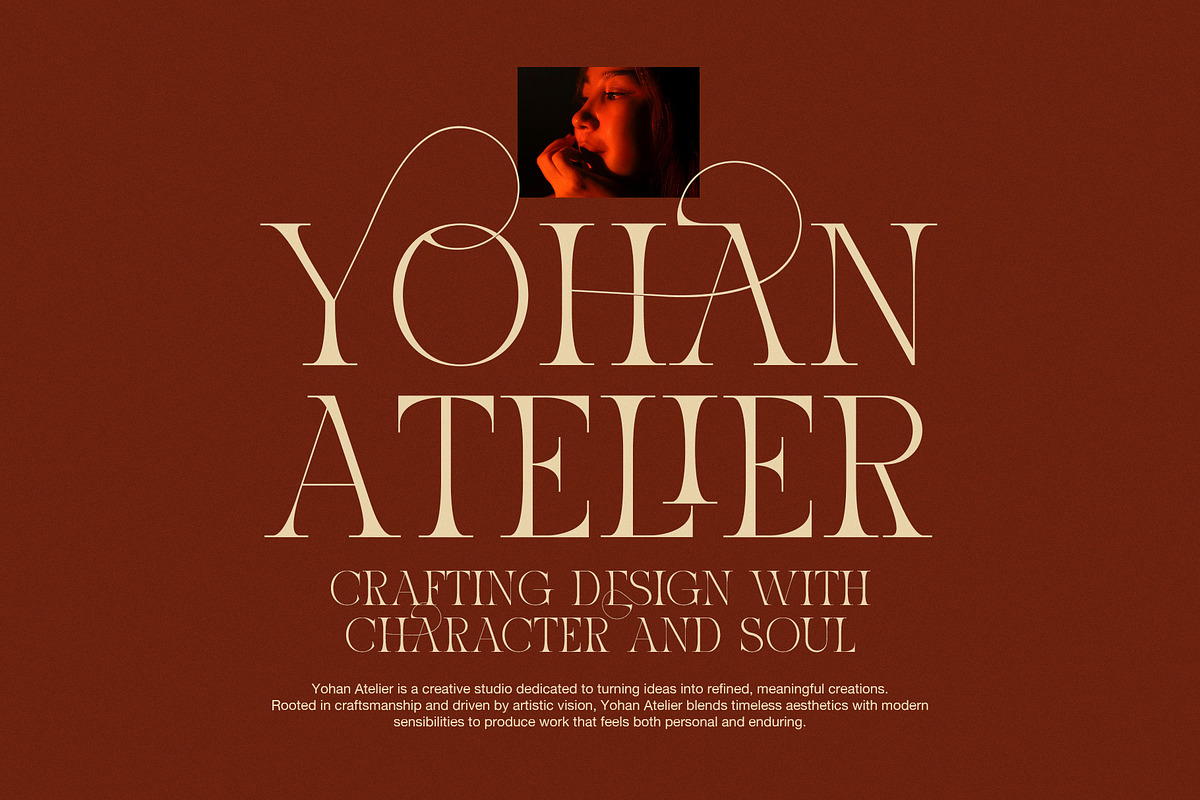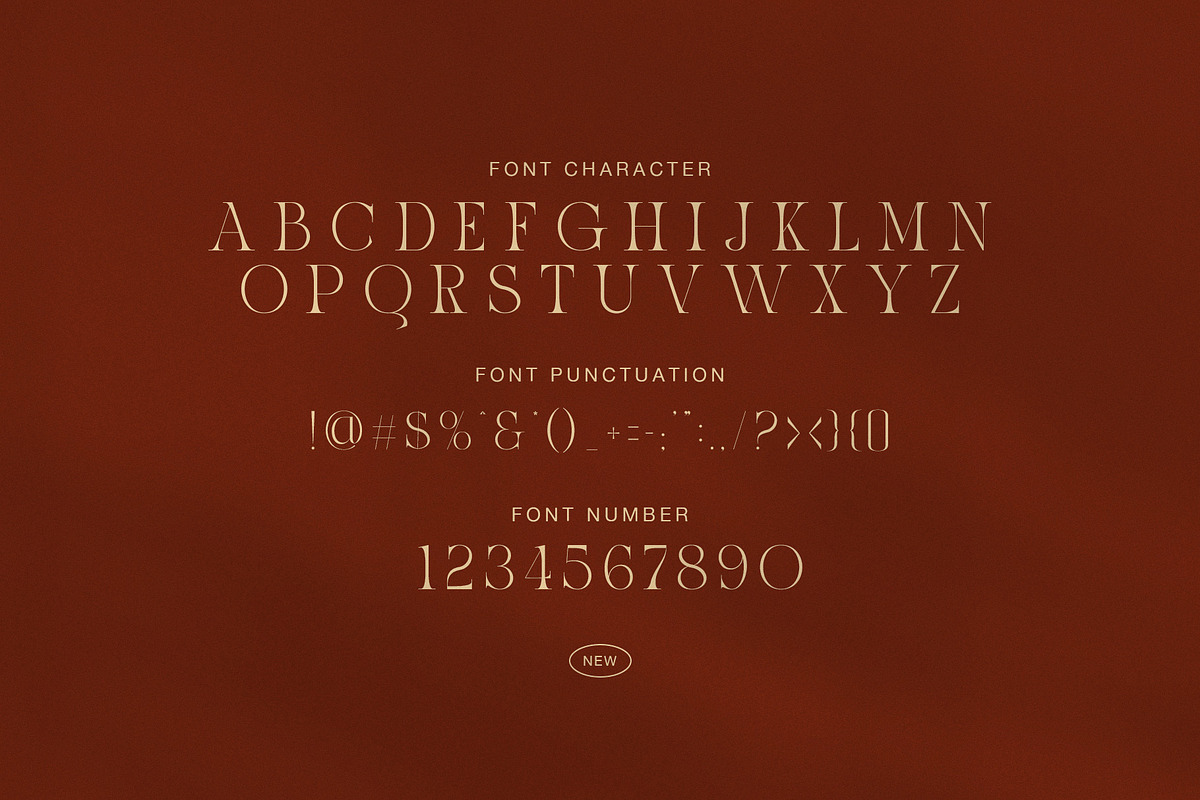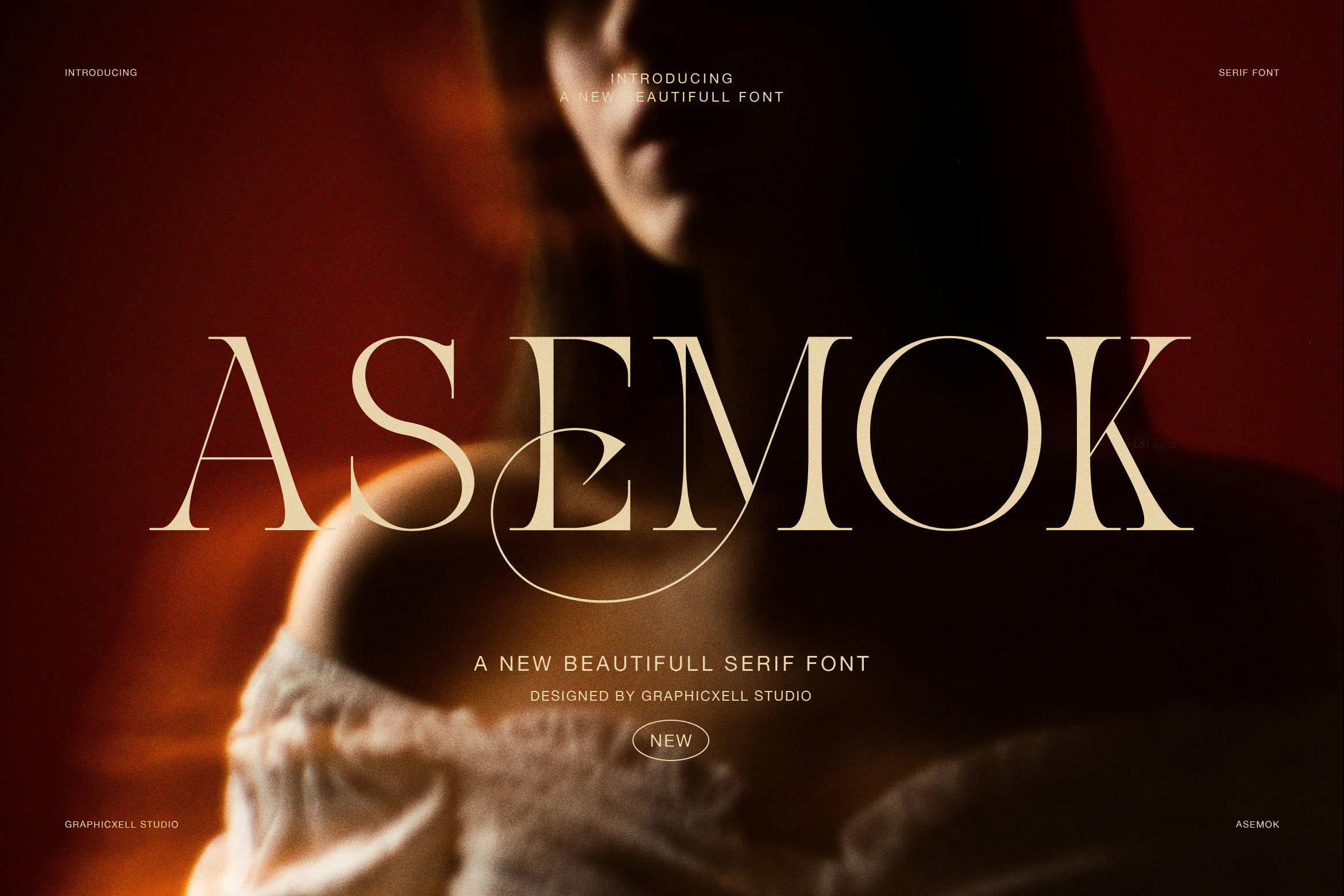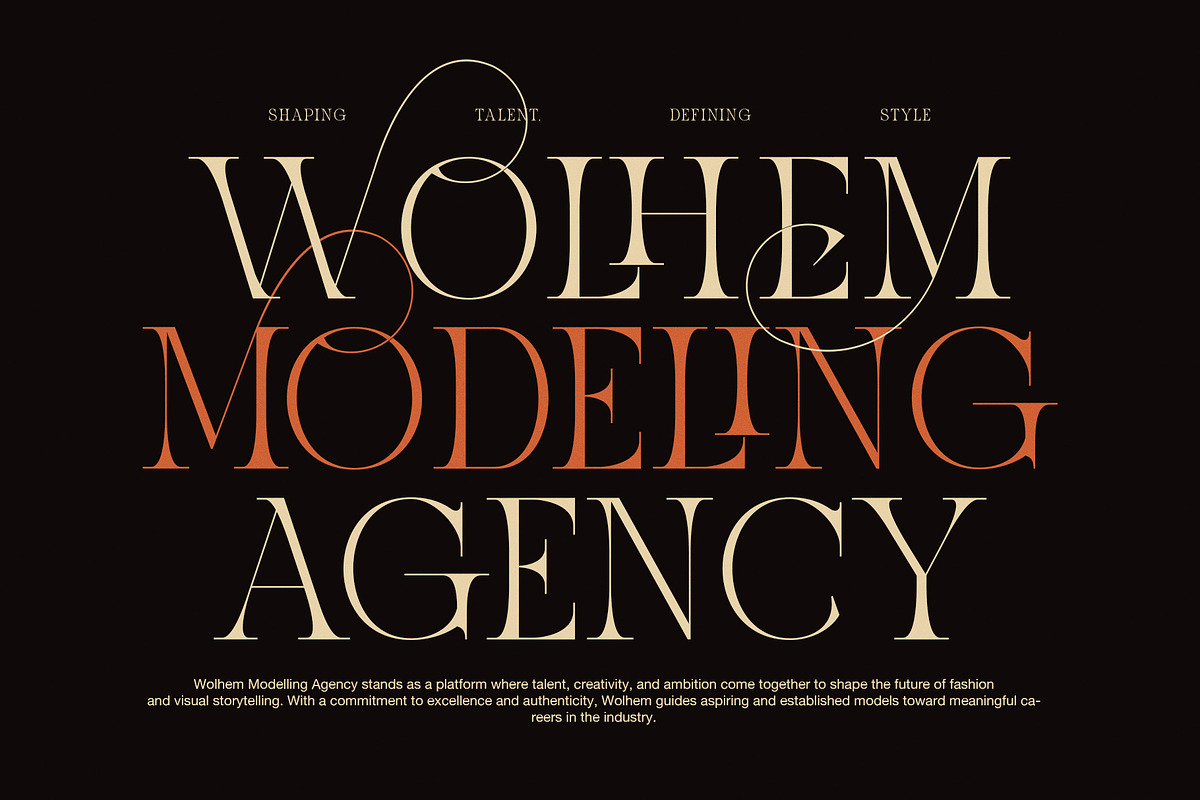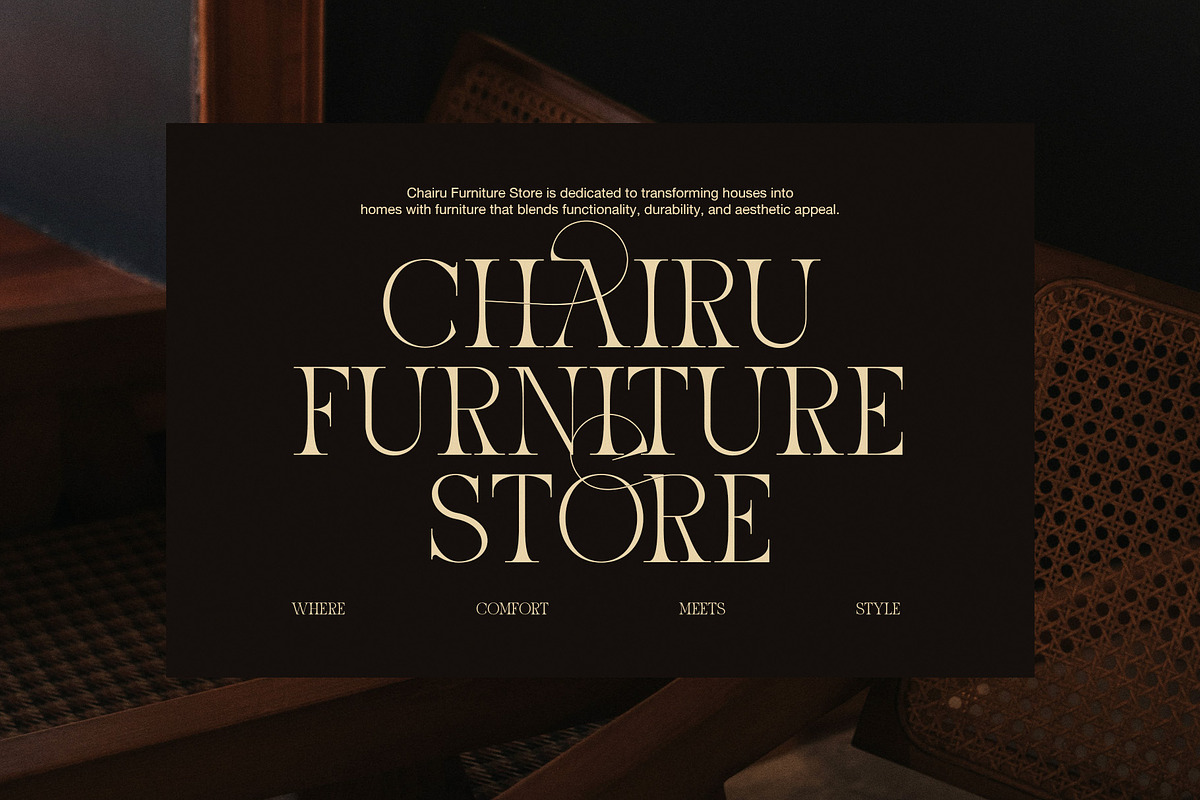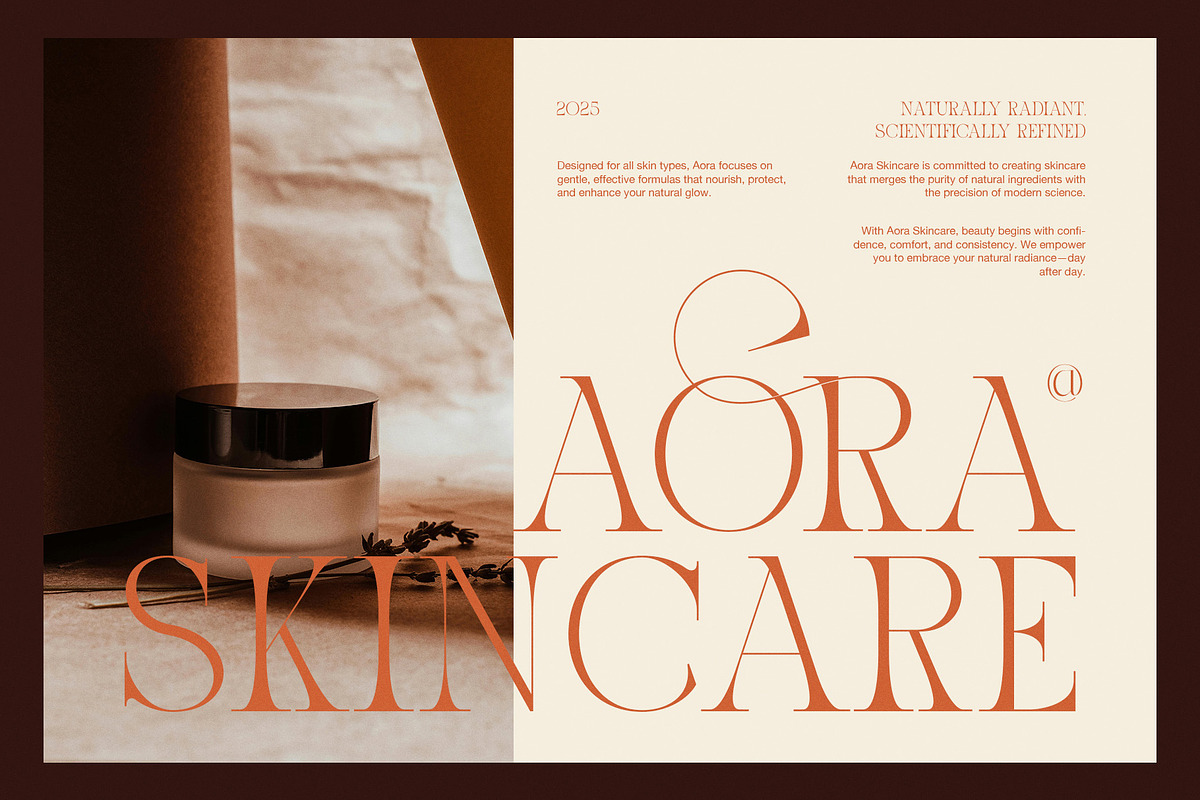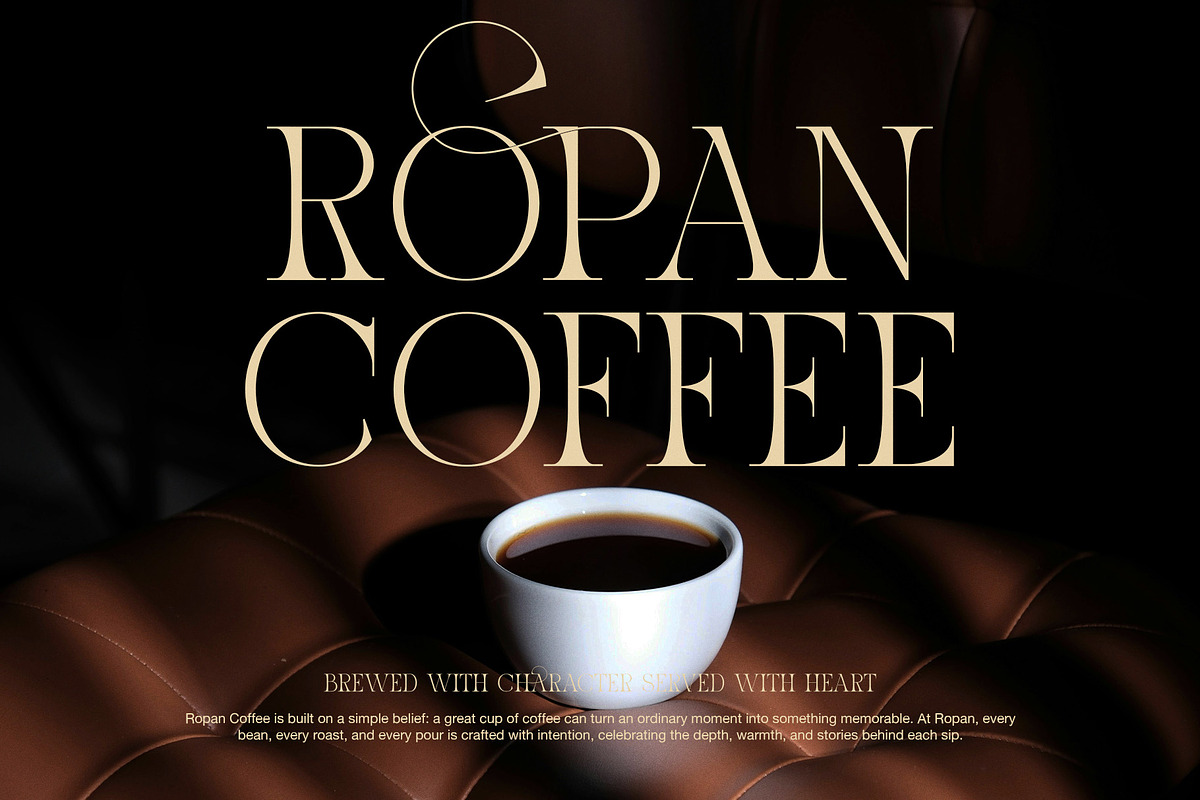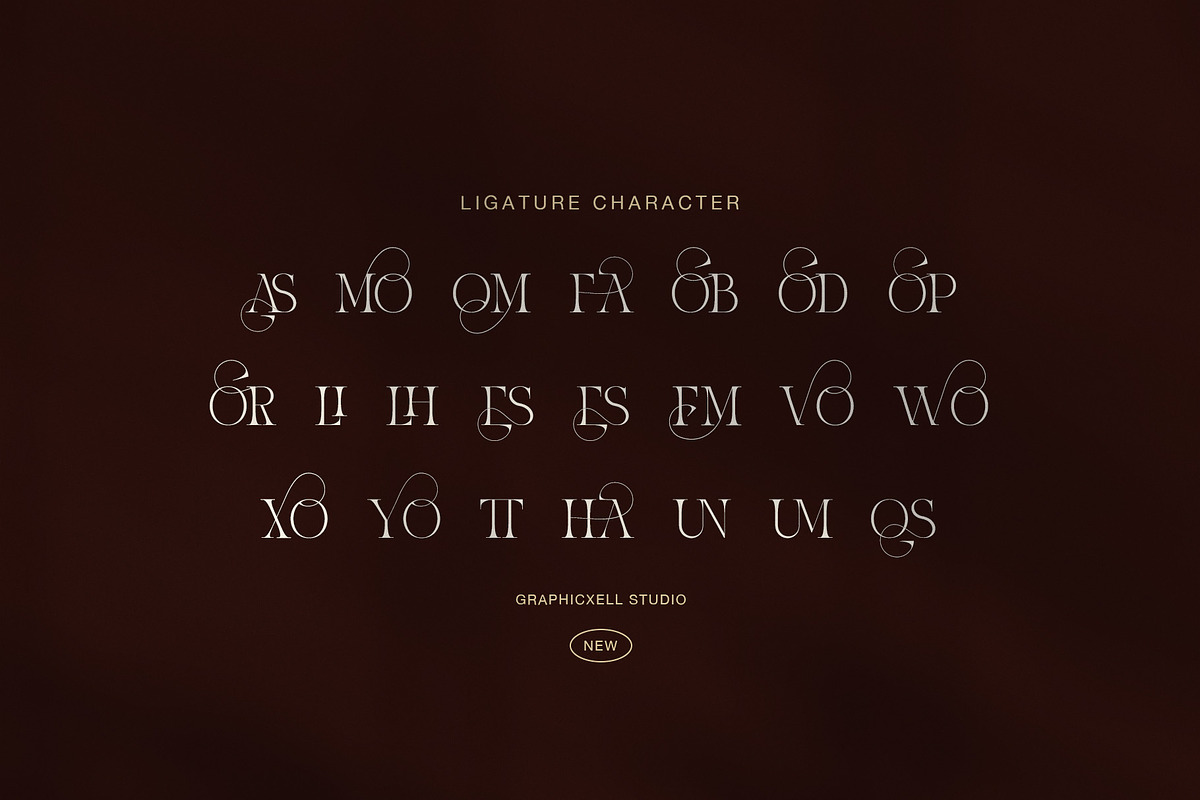
Asemok Elegant Serif Font
Asemok is an elegant serif font designed to bring character, balance, and refinement into modern visual design. Inspired by classic typography, yet shaped with a contemporary eye, this font blends timeless beauty with expressive detail. As a result, it feels both confident and graceful across many creative uses.
First of all, Asemok features high contrast strokes that create a strong visual rhythm. The letterforms feel tall, poised, and carefully proportioned. Because of this structure, headlines remain readable while still delivering a luxurious tone. In addition, the soft curves and sharp serifs work together to produce a refined editorial look.
Moreover, Asemok includes decorative ligatures that add flow and personality to words. These ligatures enhance branding, logos, and premium layouts without overpowering the message. Therefore, designers can create distinctive typography while maintaining clarity and balance.
Another key strength is versatility. Asemok performs beautifully in fashion branding, beauty packaging, magazines, coffee labels, skincare products, and interior design visuals. Whether used for large display text or elegant short paragraphs, the font keeps its charm. Furthermore, its classic influence allows it to pair well with minimalist layouts and warm color palettes.
From a technical perspective, Asemok supports uppercase, lowercase, numbers, punctuation, and stylistic ligatures. This makes it practical for real-world projects. At the same time, its artistic details help elevate designs into a premium category.
In conclusion, Asemok is ideal for creatives who want typography that feels intentional, stylish, and emotionally rich. If you need a serif font that communicates elegance, trust, and modern luxury, Asemok delivers that experience with confidence.
Key Uses Include:
Fashion and beauty branding
Editorial layouts and magazines
Logo design and visual identity
Packaging and product design
Luxury social media graphics